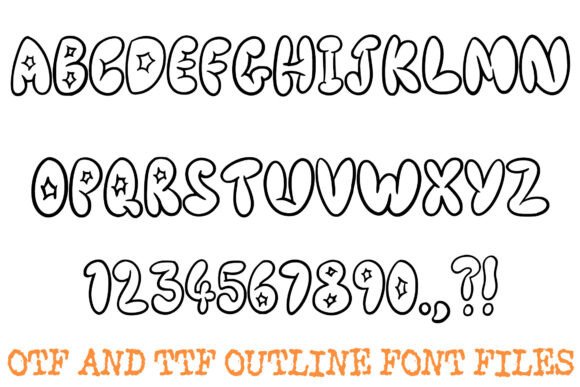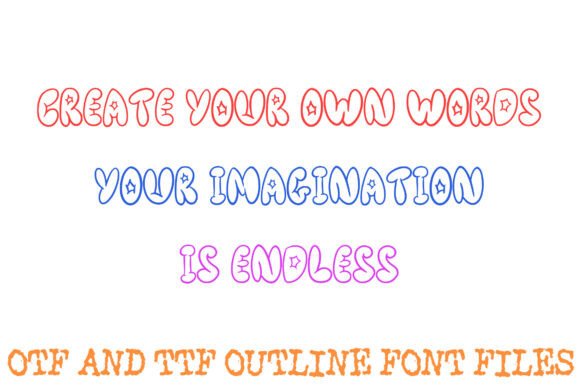
The Perfect Blend of Street Art and Style: Unlocking the Power of the Bubble Graffiti Font
Have you ever been stuck in a creative rut, searching for the perfect font to elevate your design and give it that extra oomph? You know, that moment when you’re browsing through font libraries and stumble upon something that sparks your imagination and sets your creative juices flowing?
Well, we’ve got just the thing for you! Introducing the Bubble Graffiti Font, a hand-drawn display alphabet that captures the essence of urban street art. This font is perfect for designers looking to bring a touch of the city streets to their designs, from streetwear branding to vinyl stickers, skate deck graphics, and high-impact social media headlines.
What sets the Bubble Graffiti Font apart is its unique blend of underground grit and playful charm, making it a valuable addition to any designer’s toolkit. With its bold, puffy letterforms and clean, modern finish, this font is sure to make your designs stand out and hit different.
Bubble Graffiti Font Key Features
- Unique Characteristics: Distressed, hand-painted, and bubble-like effects create a playful and eye-catching aesthetic
- Character Set: Includes a wide range of characters, including uppercase and lowercase letters, numbers, and punctuation marks
- Style Options: Offers various style options, such as regular, bold, italic, and bold italic, to suit different design needs
Bubble Graffiti Font Review
I recently had the chance to work with the Bubble Graffiti Font, and I must say it’s a unique and eye-catching addition to any design project. ✨ The font’s bubbly, hand-drawn style gives it a playful and whimsical feel that’s perfect for creating a fun and lively atmosphere.
- Customization options are extensive, allowing for a high degree of control over the font’s appearance and feel.
- The font’s organic, hand-drawn quality makes it a great choice for projects that require a more human touch.
- Bubble Graffiti Font is highly versatile and can be used for a wide range of design applications, from branding and marketing materials to digital products and social media graphics.
However, there are a few limitations to consider. ⚠️ The font’s bubbly style can be overwhelming or difficult to read in certain contexts, such as in small text sizes or at high resolutions. Additionally, the font’s extensive customization options can be overwhelming for designers who are not familiar with font editing software.
Overall, I think the Bubble Graffiti Font is a great choice for designers who are looking for a unique and eye-catching font that can add a touch of personality to their projects. While it may have some limitations, the font’s versatility and customization options make it a valuable addition to any design toolkit.
The Bubble Graffiti Font is perfect for:
– Creating eye-catching social media graphics.
– Designing unique posters and flyers.
– Adding a playful touch to presentations and reports.
– Creating custom invitations and party decorations.
Alternatives to Bubble Graffiti Font
Comic Sans MS is a casual, informal font that is often used for playful and humorous designs. It is similar to Bubble Graffiti Font in its rounded and bubbly appearance, but it lacks the graffiti-inspired look and feel. Comic Sans MS is a good alternative when you want a fun and approachable font, but it may not be suitable for more professional or formal designs.
Great Vibes is a handwritten font that is often used for creative and expressive designs. It has a similar playful and carefree feel to Bubble Graffiti Font, but it is more elegant and sophisticated. Great Vibes is a good alternative when you want a font that is both fun and refined.